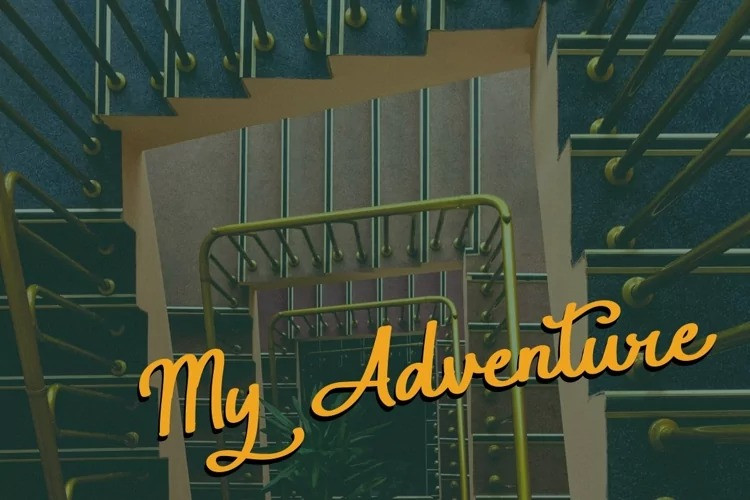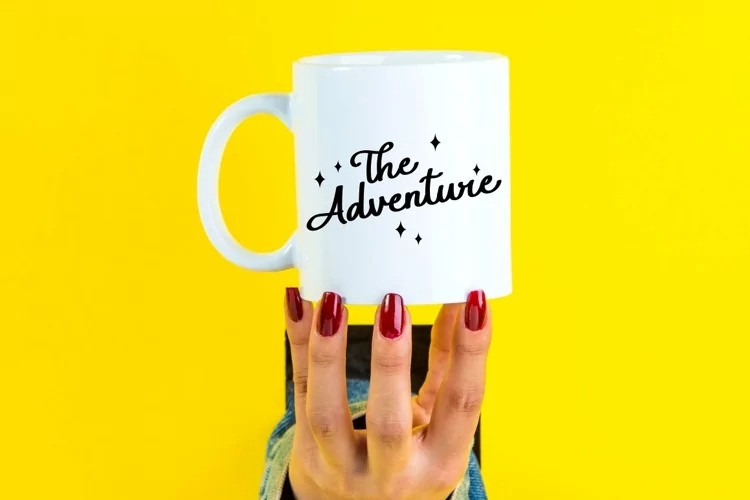
Amera Handwritten Font
Authentic & organic handwritten font, created using direct hand gestures. This font has been carefully designed to recreate natural, handwritten text, and includes special ligatures for free-flowing pen strokes. Amera is perfect for handwritten quotes, tagging, stylish logos, stylish branding projects, and handcrafted product & stationery designs.